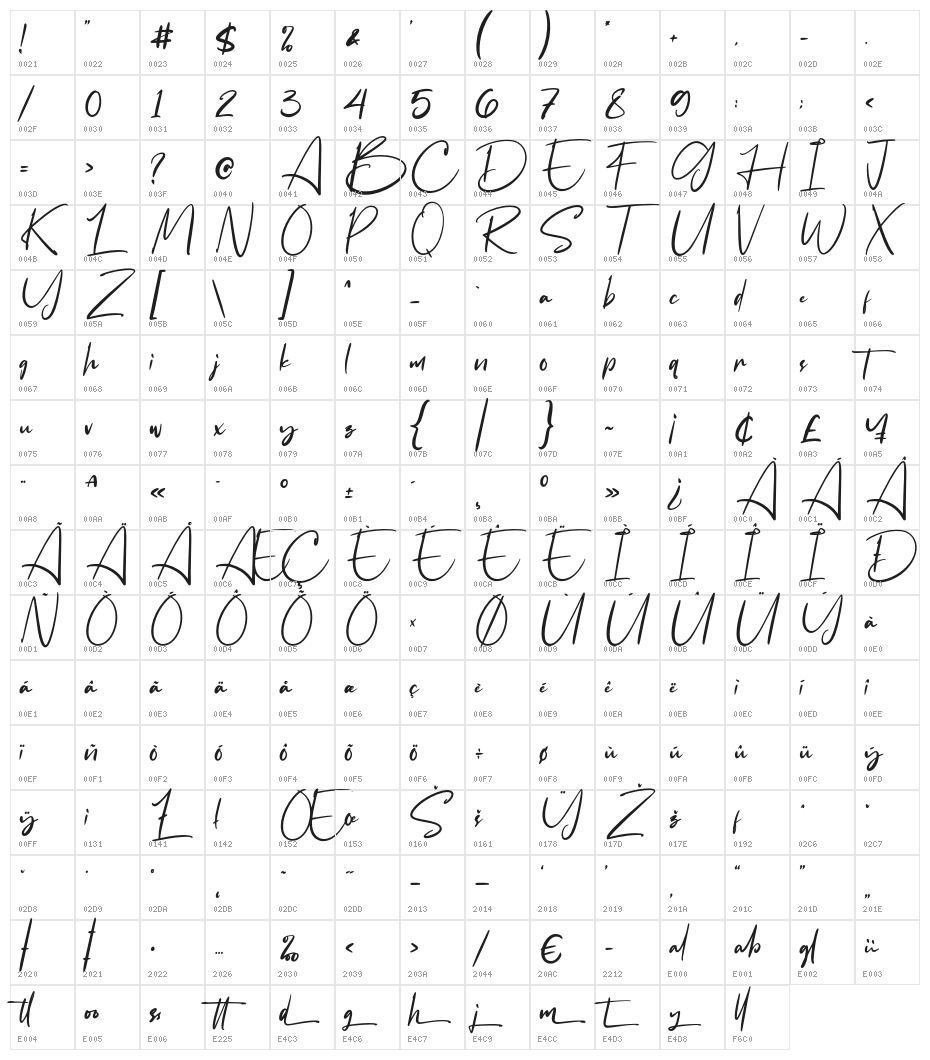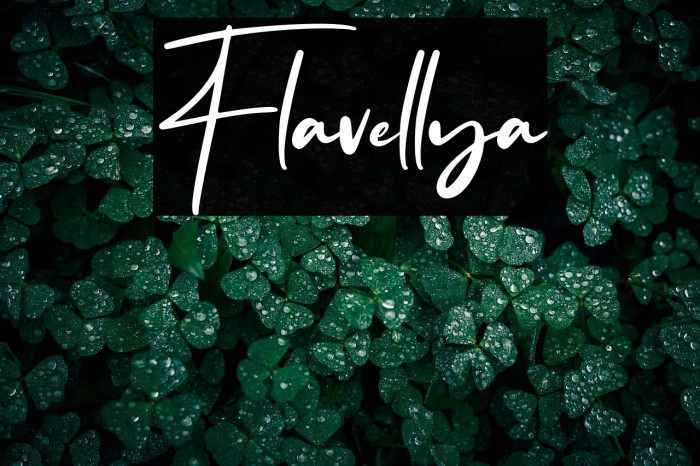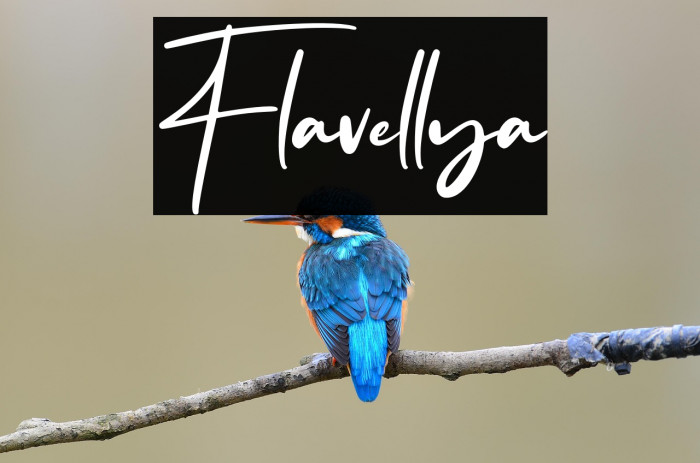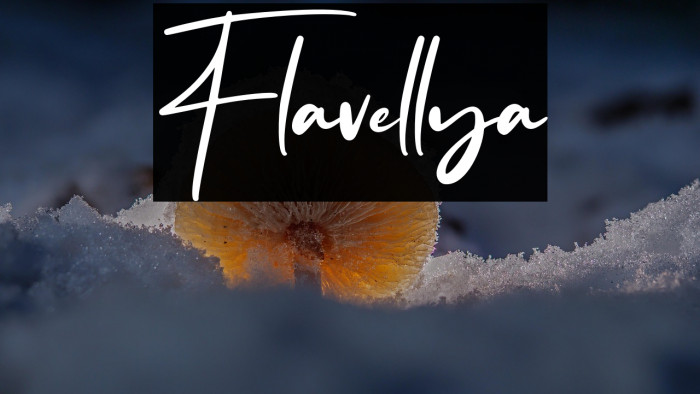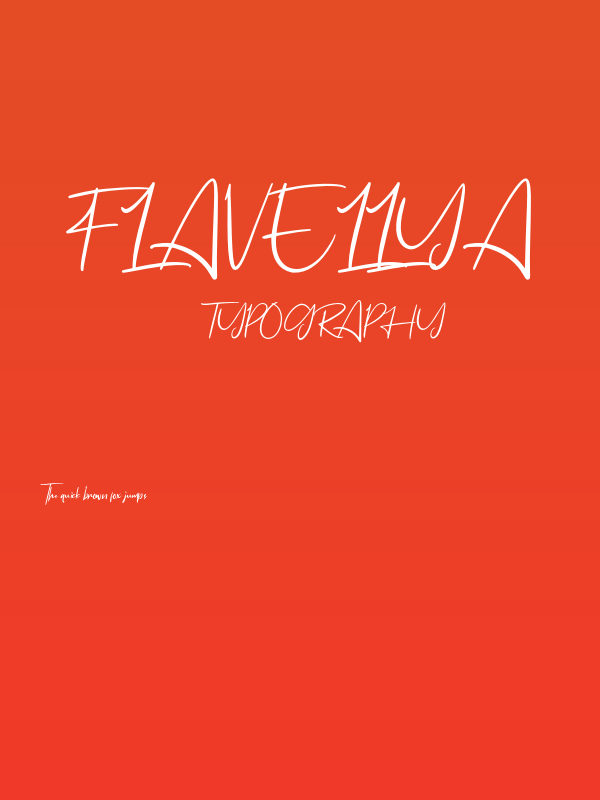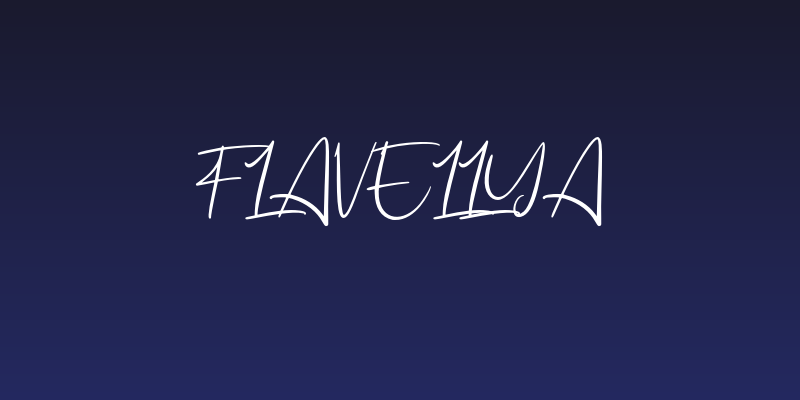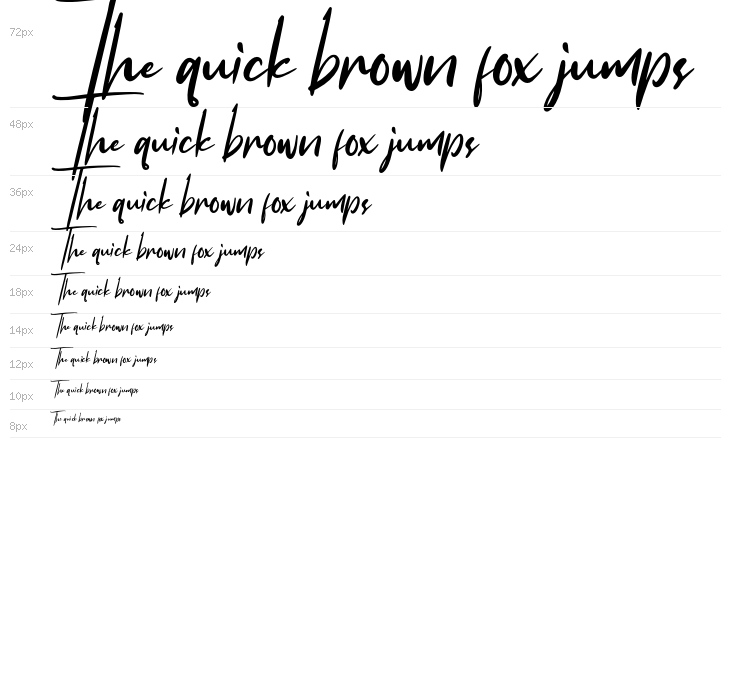
Flavellya Font
Flavellya Description
This font features a dynamic and expressive handwritten style, characterized by its fluid strokes and varying line thickness. The uppercase letters exhibit a playful and energetic flair, with some letters extending beyond the baseline, adding a sense of movement. The lowercase letters maintain a cohesive flow, with a slightly more compact appearance. Numbers are bold and rounded, complementing the overall style. Special characters are creatively integrated, maintaining the font's lively aesthetic. This font is ideal for projects that require a personal touch, such as invitations, greeting cards, or branding materials that aim to convey creativity and warmth.
| Use Case | Logos, Headlines, Creative projects |
| Proposed Projects | Ideal for invitations, greeting cards, branding, and creative projects. |